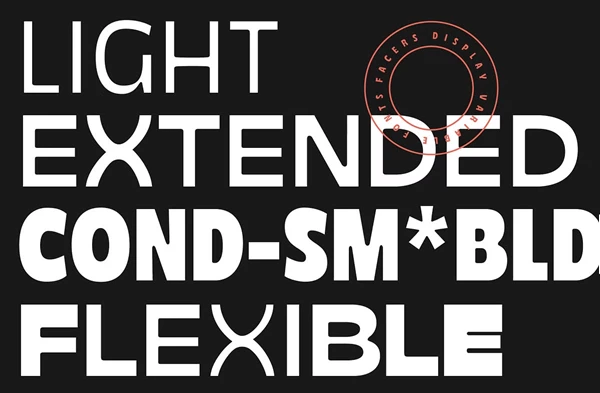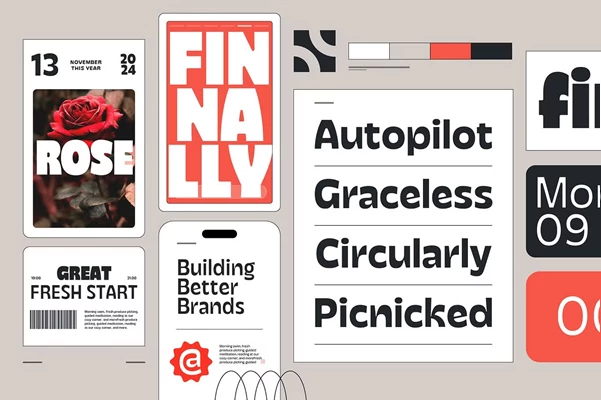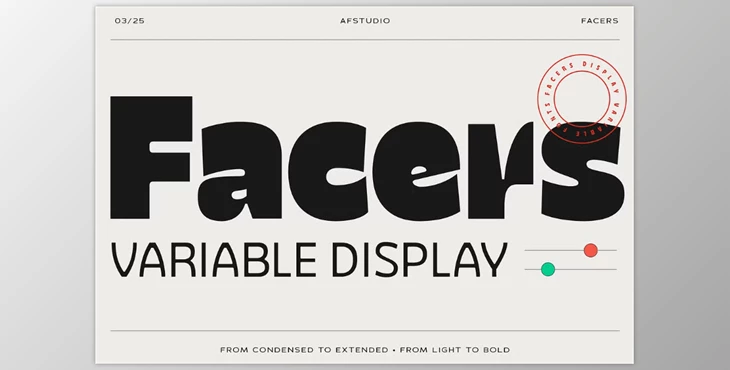
Facers Font Family:
With the distinctive mark that Facers™ leaves, it is easy to say that it is a modern and bold typeface. Supporting 25 different styles, Facers offers an extensive solution for contemporary and sophisticated design needs. Being versatile in accomplishing editorial layouts, posters, and branding items, Facers continues to meet the designer's imagination. Facers™ has 5 widths and 5 weights, showcasing effortless versatility and adaptability to any project. The Retro-inspired Facers™ can create bold headlines and titles, typographic posters, or any centerpiece text while still combining nostalgia and modernity.
Ligature and alternates Chic Facers™ include Faster™ highly suitable for global lifestyle, fashion technology, and cultural projects. With chic typography, There Facers™ also comes with a multi-purpose value-added character set, making Facers™ a must-have in multi-border projects. Covering 25 OTF font files, alongside a variable font TTF or WOFF2, and web version WOFF/WOFF2, Facers™ is bound to be accessible on all platforms.
Application of the Capability of Facers:
- Striking product packaging
- Fashion, lifestyle, and Tech global branding
- Social media and promotional artwork
- Boundless event and music flyers
- Artful motion graphics and animation
- Fresh corporate identity design and branding
- Modern typographic posters and magazine covers
Grab Hold of Facers™ as it gives a perfect combination of sophistication and vintage feel to any project.